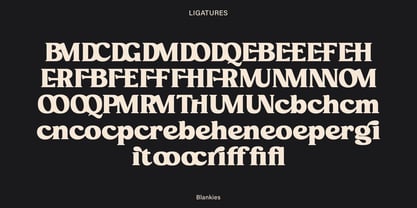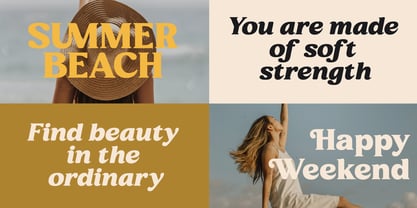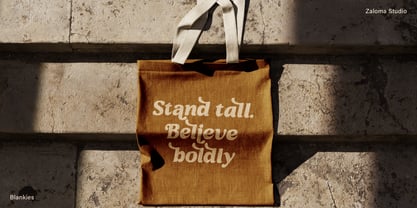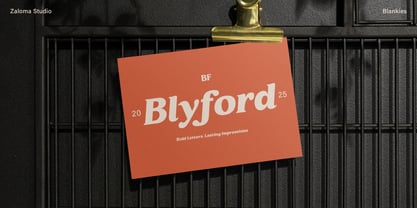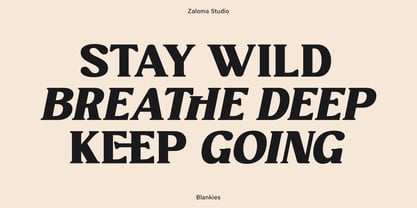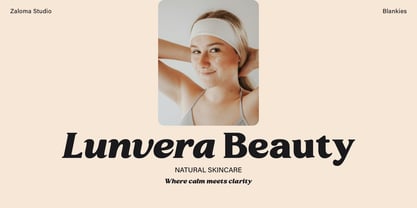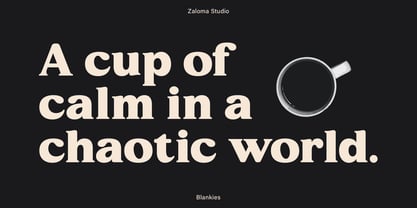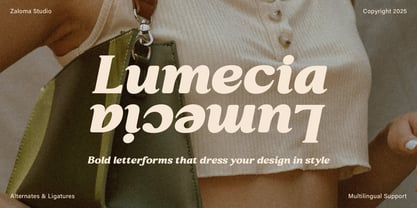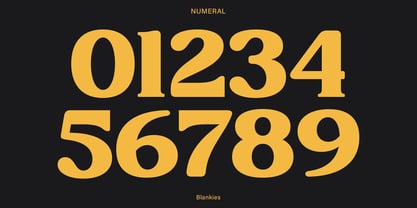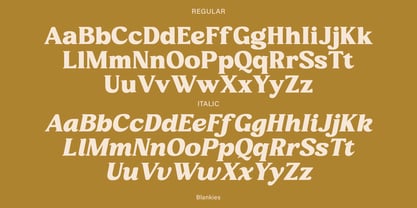
Blankies
by Zaloma Studio
The Blankies Font Family was designed by Mahyudi and published by Zaloma Studio. Blankies contains 2 styles and family package options. More about this family
Blankies
Bold Retro Display Typeface – Regular & Italic
Blankies is a bold retro serif font inspired by 70s aesthetics, combining soft curves with sharp contrast for a timeless look. Ideal for branding, packaging, posters, and headlines.
It comes in Regular and Italic styles, complete with alternates and ligatures to enhance your creative typography.
Key Features:
• Alternates & ligatures
• Multilingual support
• Uppercase & lowercase
• Regular & Italic styles
Designers: Mahyudi Mahyudi
Foundry: Zaloma Studio